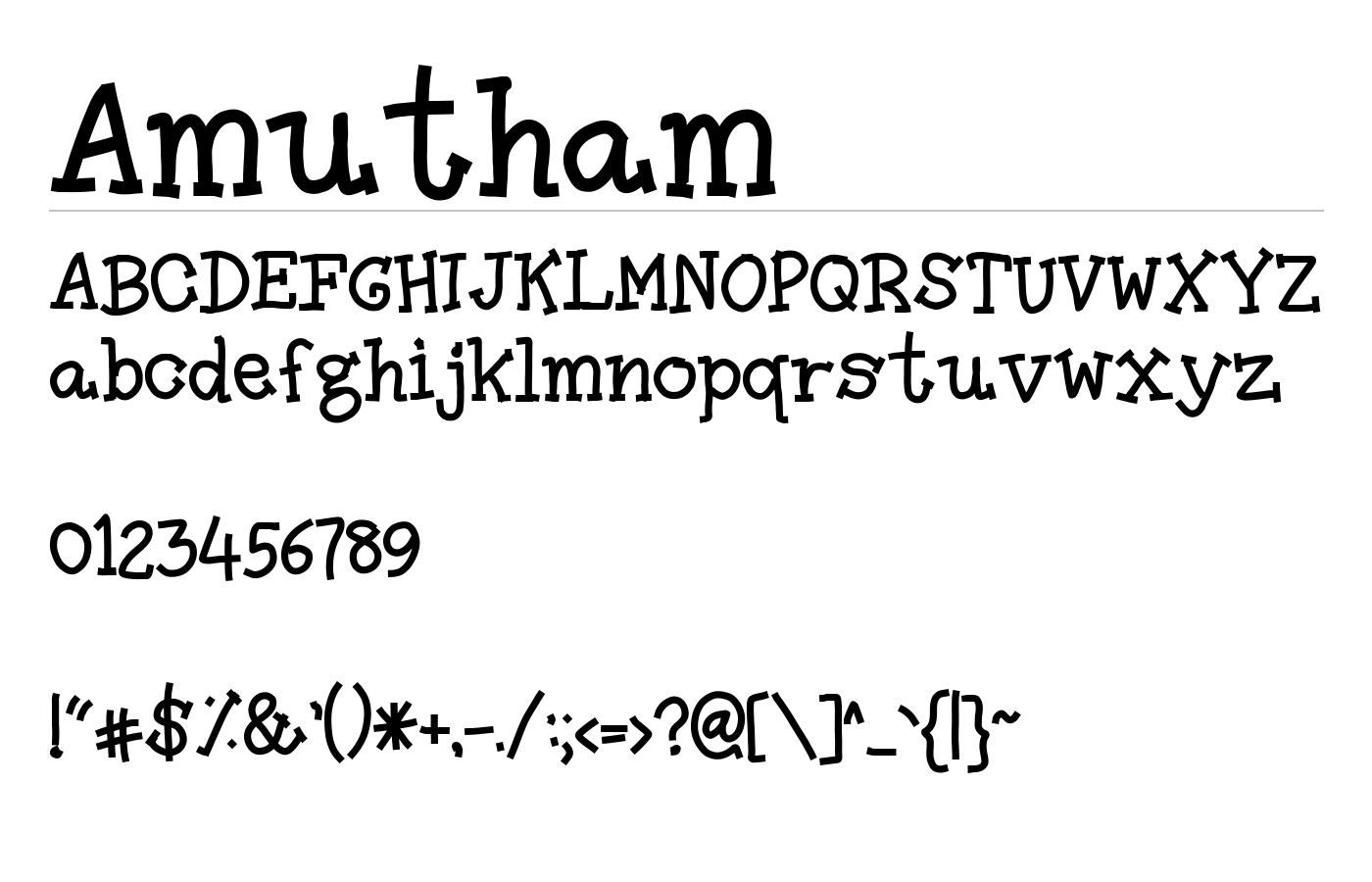
Amutham is a quirky, playful serif font with a hand-drawn feel, featuring irregular stroke widths and whimsical letter shapes that add personality and charm. Its slightly condensed, casual style works beautifully for creative projects, informal branding, and fun headlines where a friendly, approachable vibe is desired. This font stands out with its lively character and is perfect for designs that want to feel warm and uniquely expressive.
Amutham Font
About Amutham Font
| Font family | Amutham Font |
| Designer | Tharique Azeez |